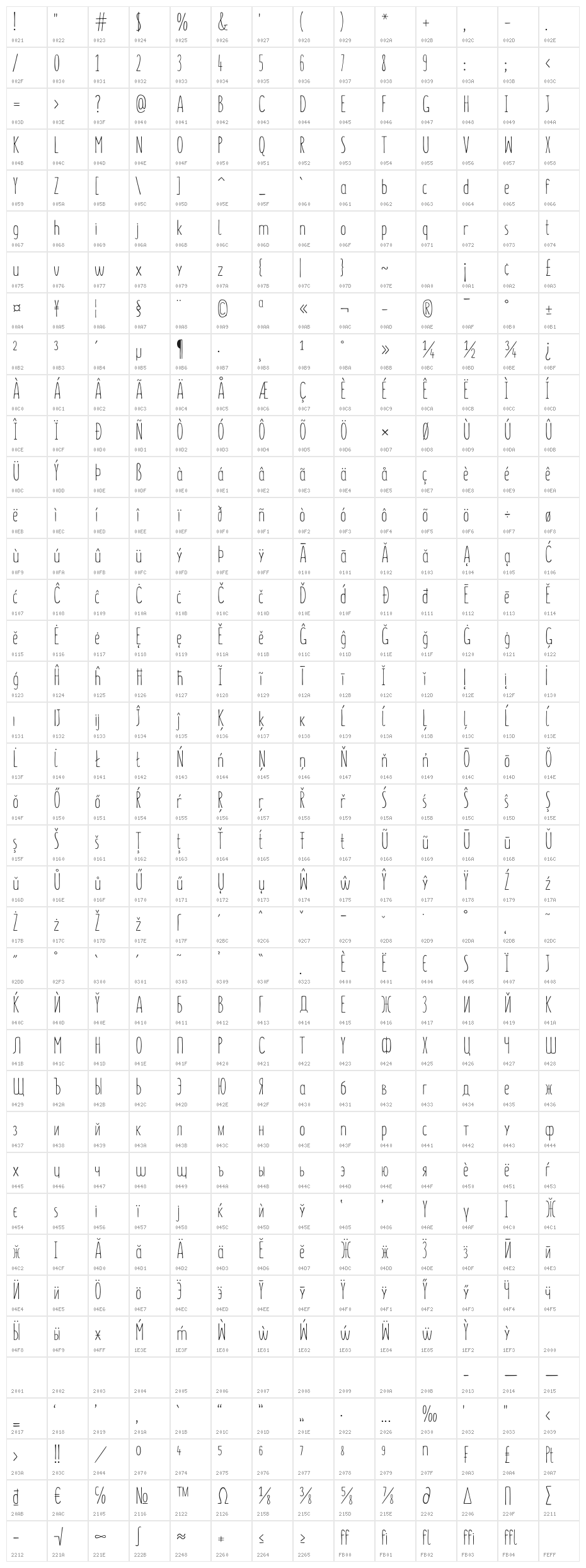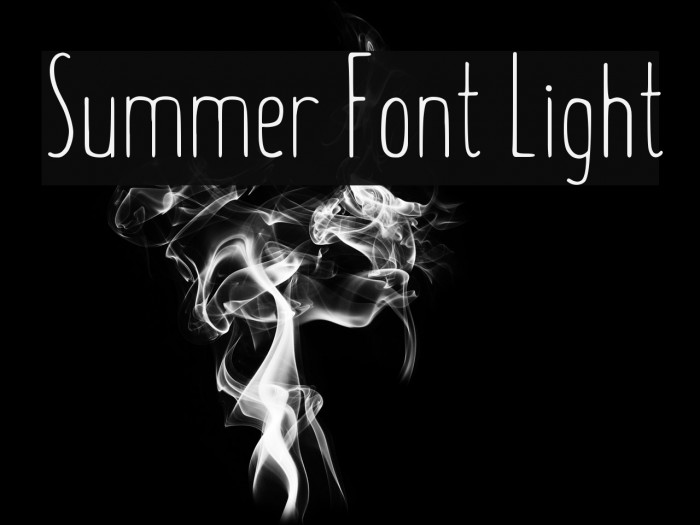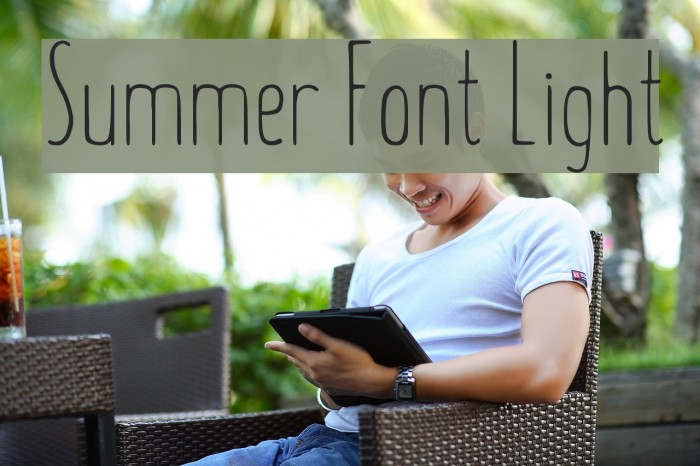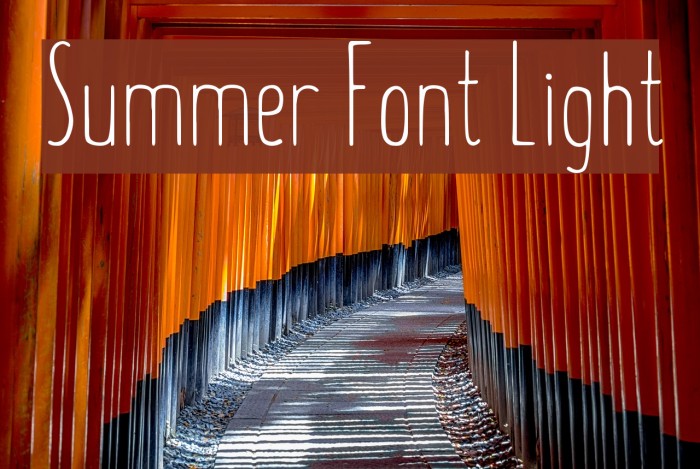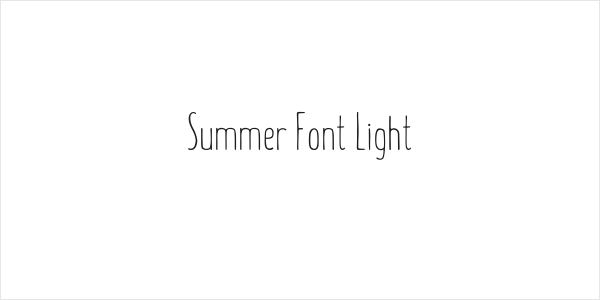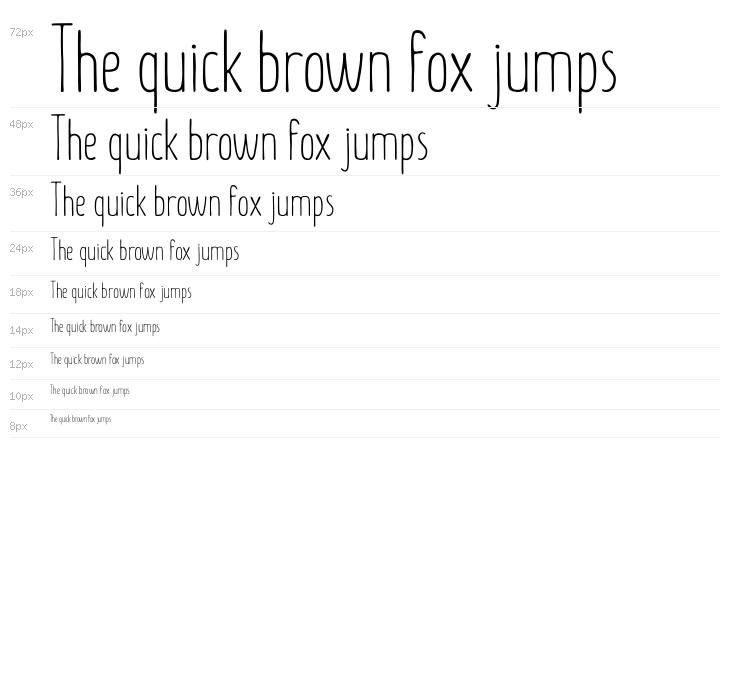
Summer Font Light Font
Summer Font Light Description
This font features a light and airy design with tall, narrow characters that convey a sense of elegance and simplicity. The strokes are consistent in width, providing a clean and modern appearance. The uppercase letters are slightly taller than the lowercase, maintaining a uniform height that enhances readability. The numerals are well-proportioned, aligning seamlessly with the overall style. Special characters are distinct and maintain the font's minimalist aesthetic. This font is ideal for projects that require a touch of sophistication without sacrificing clarity.
| Proposed Projects | Ideal for wedding invitations, minimalist branding, and modern editorial layouts. |